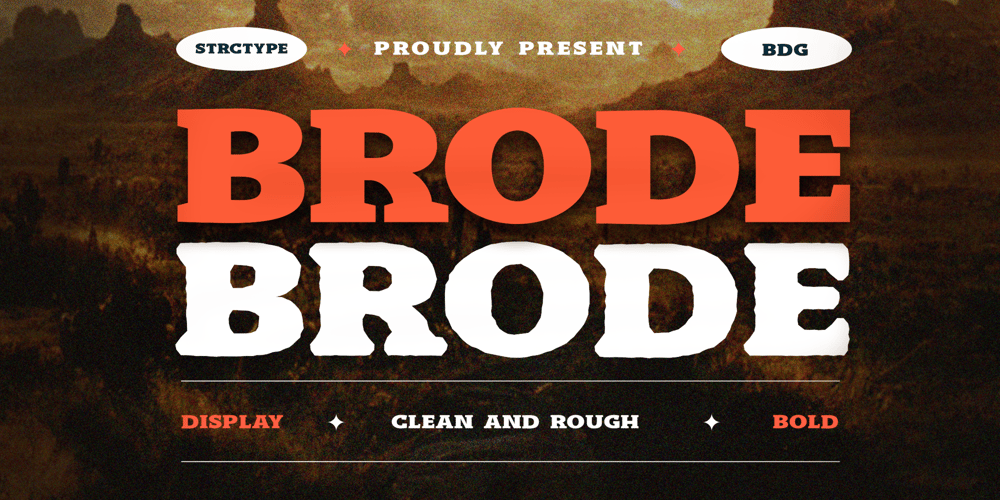
Brode Font Family was designed by panji nugroho and published by Storictype. Brode contains 2 styles and family package options. Brode is a display slab serif font with 2 style clean and rough ,looks bold and wide also comes with alternative characters that created for adding a altivative uppercase decor of the letters. and it looks right on every character’s we’ve made. Stylistic alternates allows versatile design options and works. Perfect for headline, logo, branding, emblem, enamel, for a adventure tone, posters, packaging, t shirt, presentationn and much moreFeatures:- Uppercase & lowercase- Numerals & Punctuation- Stylistic Alternate Characters uppercase- Multilingual SupportsFind out more ways to use this font by taking a look at the font preview. Hopefully you enjoy your experience in using our font. Feel free to contact us for further product information or trouble complaints. Thank you and happy designing.